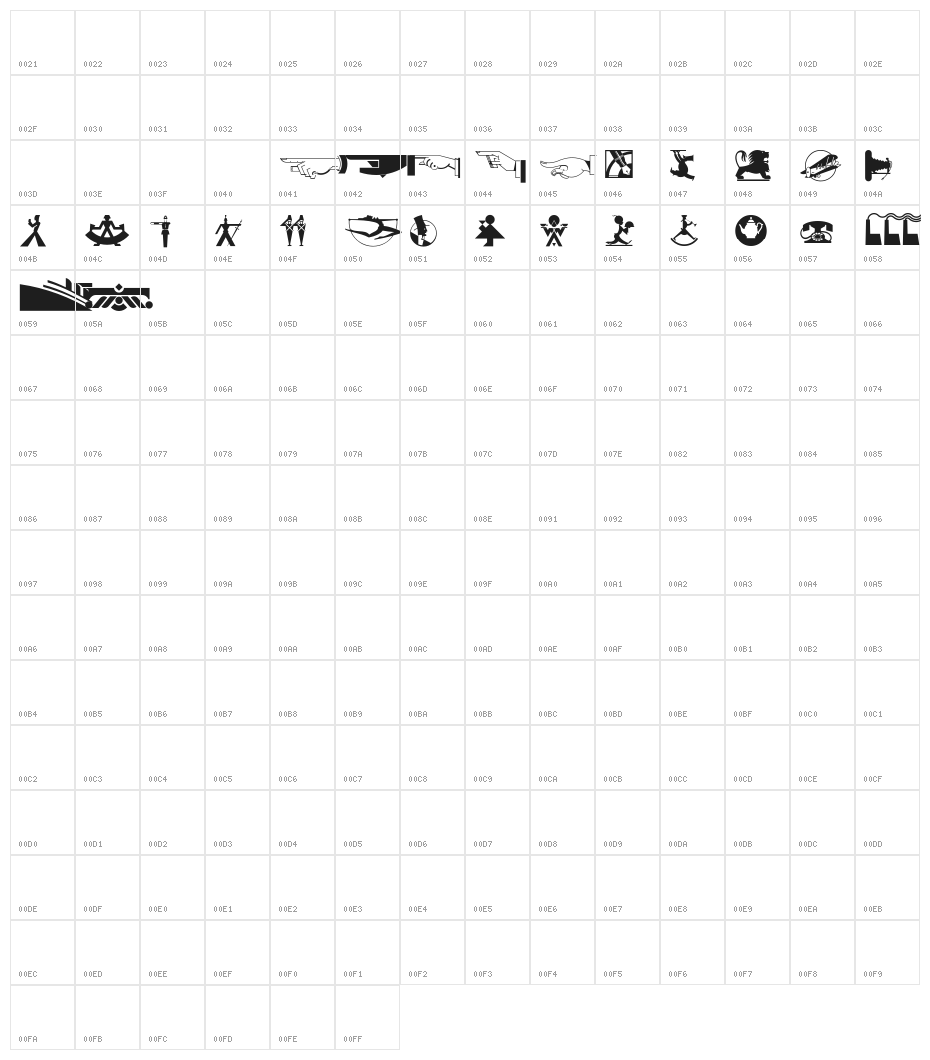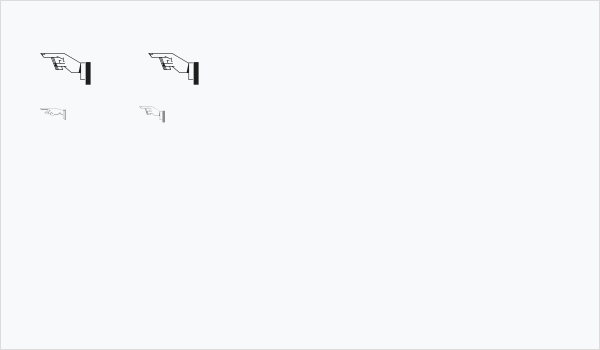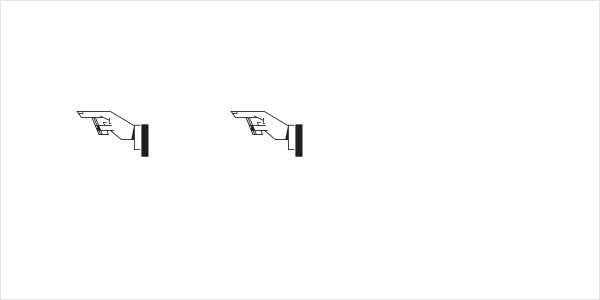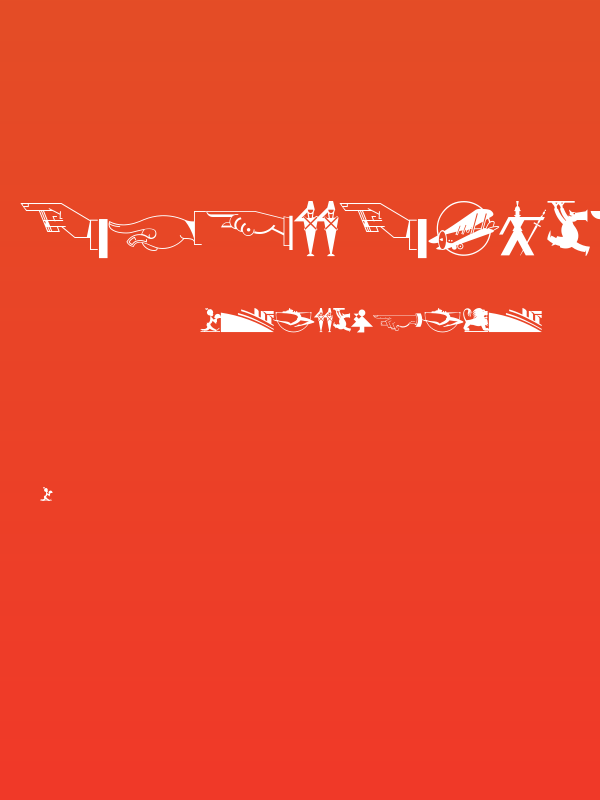
DecoDingbats1 Font
DecoDingbats1 Description
This collection of symbols features a variety of playful and whimsical designs, each representing different objects or concepts. The characters include pointing hands, abstract shapes, and stylized figures, all rendered in a bold, graphic style. The designs are highly detailed, with a strong emphasis on silhouette and contrast, making them stand out clearly against any background. The overall aesthetic is reminiscent of vintage signage or classic iconography, with a modern twist. These symbols are perfect for adding a touch of creativity and uniqueness to any project, whether it be in print or digital media.
| Use Case | Logos, Decorative elements, Posters |
| Proposed Projects | Ideal for use in creative projects such as posters, logos, or branding materials where a unique and eye-catching element is desired. |